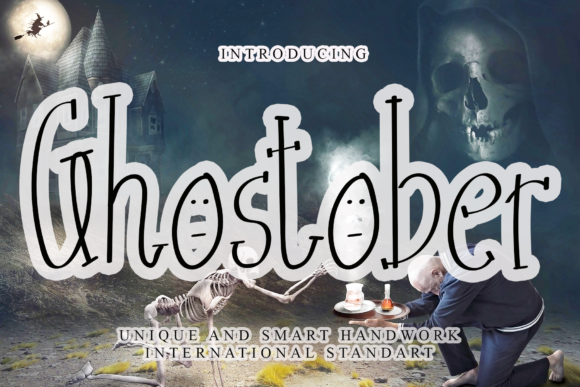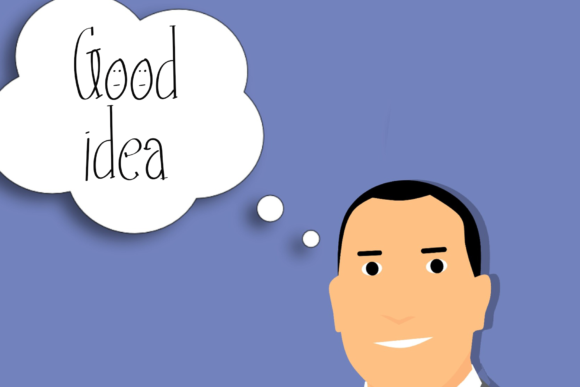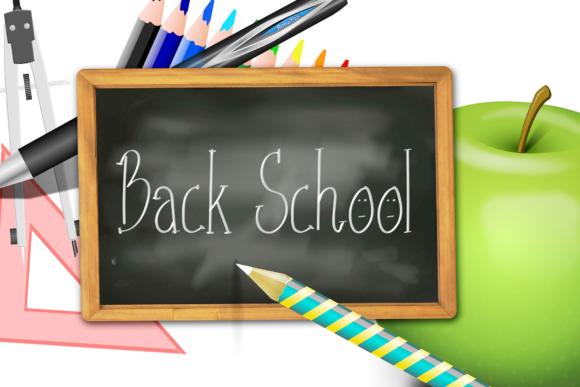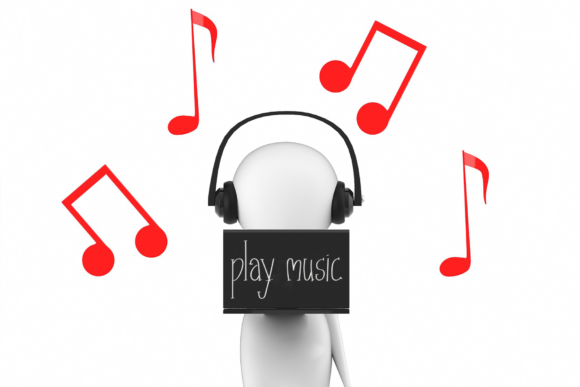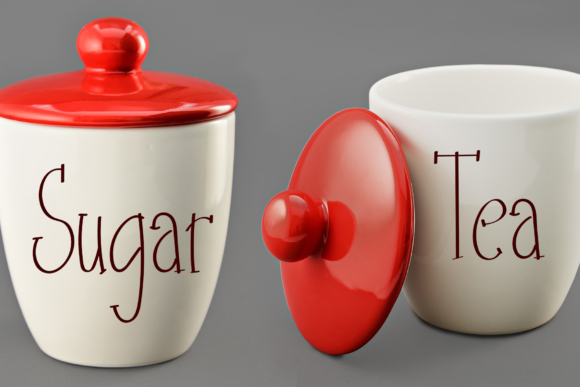
Ghostober Font
About Ghostober Font
Ghostober is a thin and cute handwritten font with a fun theme. Get creative with its childlike playfulness, and use it to brighten up any kids and school project!